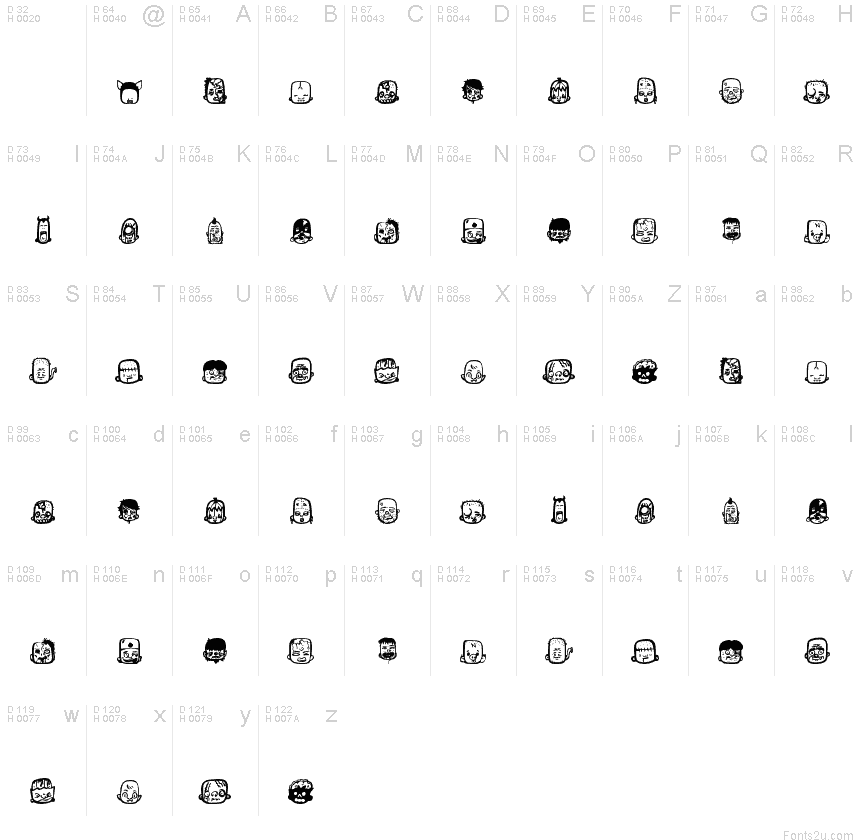
Zombiz is a free cartoon dingbat font filled with grotesque undead heads. Each symbol uses thick, uneven outlines, blunt facial features, and a different combination of scars, stitches, exposed teeth, or vacant eyes. The drawings are crude, comic, and deliberately varied.
In publishing, these portraits can punctuate horror-comedy covers and Halloween activity pages. They also suit game interfaces and novelty merchandise with goofy gore. Its strongest role is as a ready-made cast of zombie faces rather than conventional lettering.